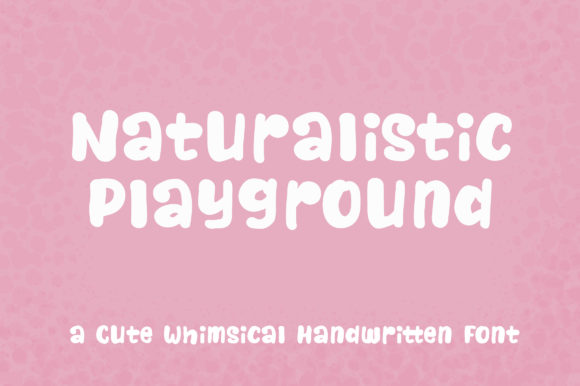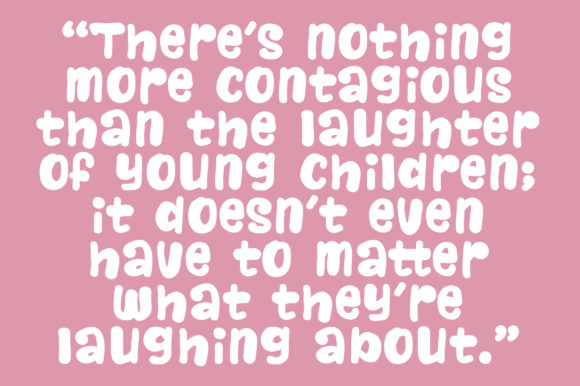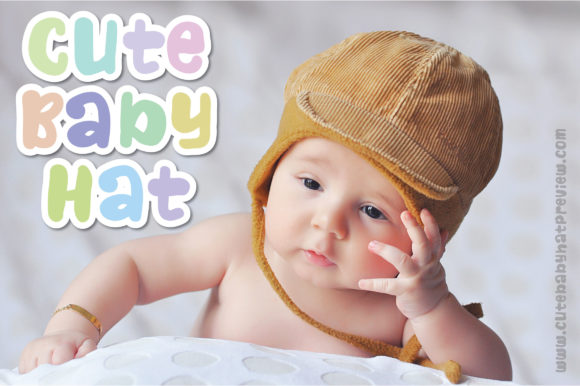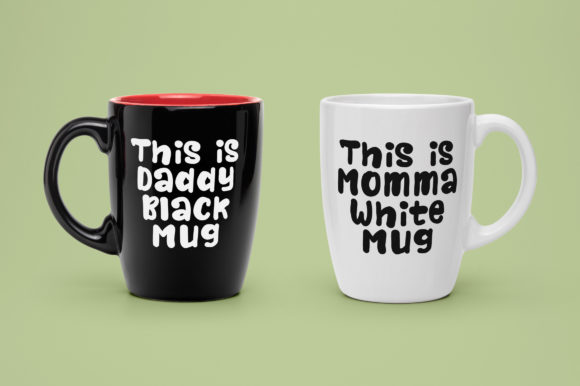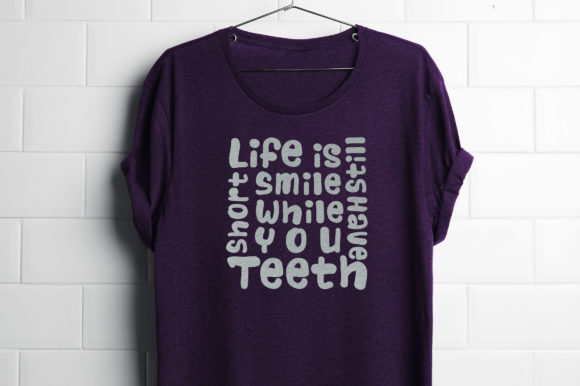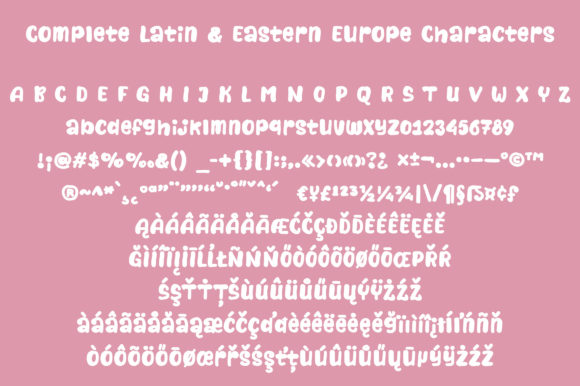
Naturalistic Playground Font
About Naturalistic Playground Font
The Naturalistic Playground is a cute and whimsical handwritten font. It has a natural and clean shape which makes it perfect for adding a fun and personal feel to your designs.